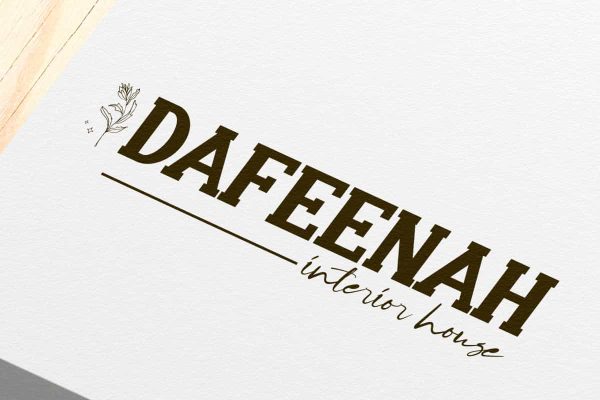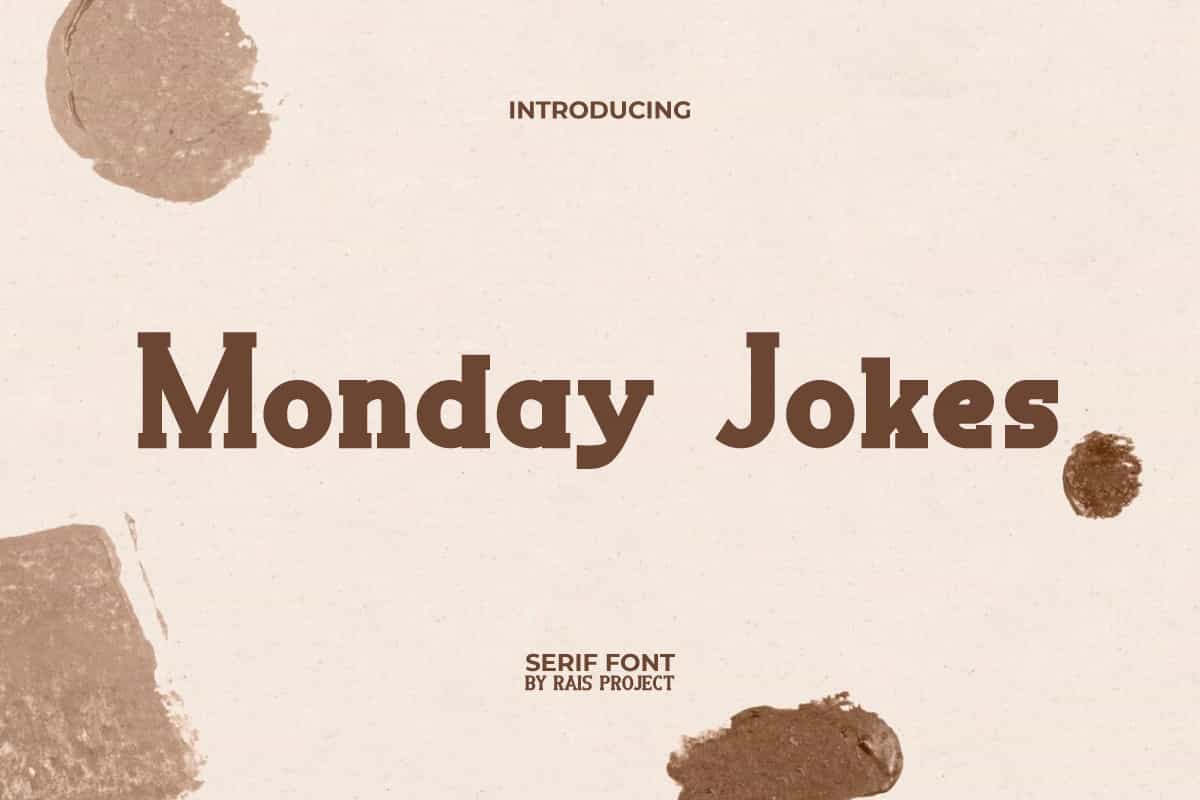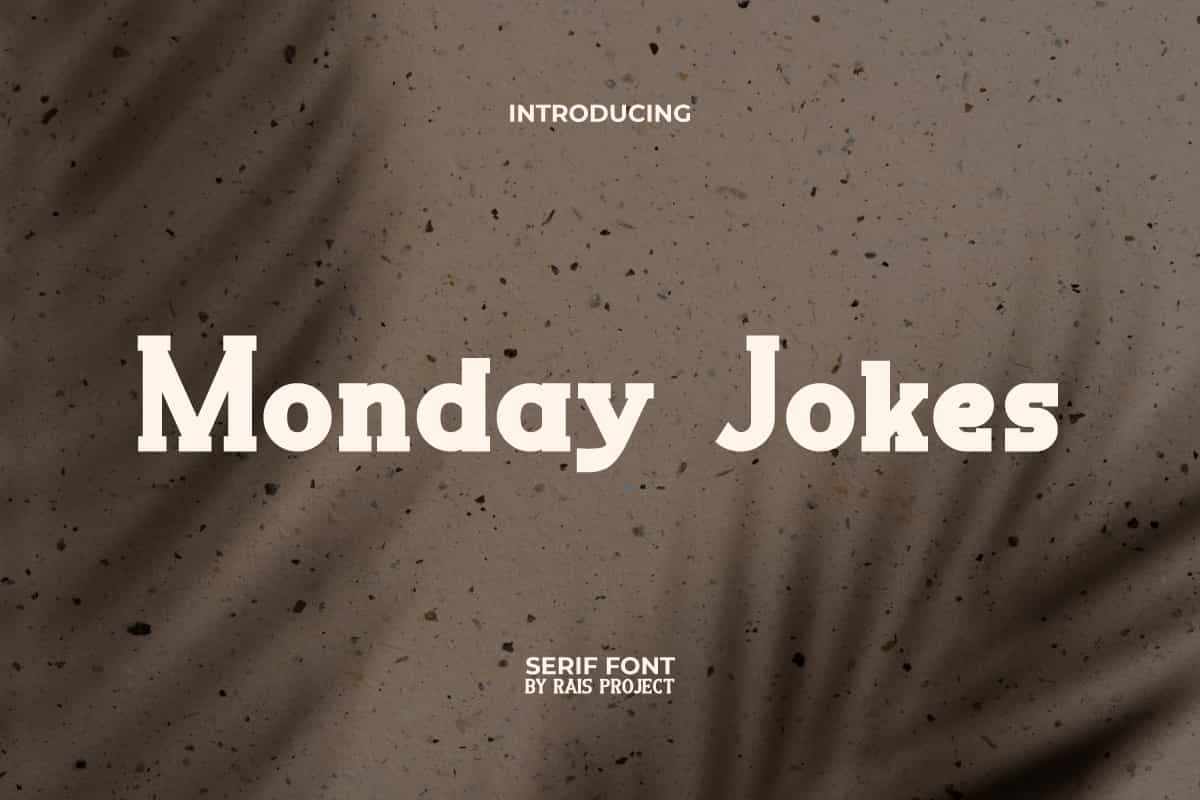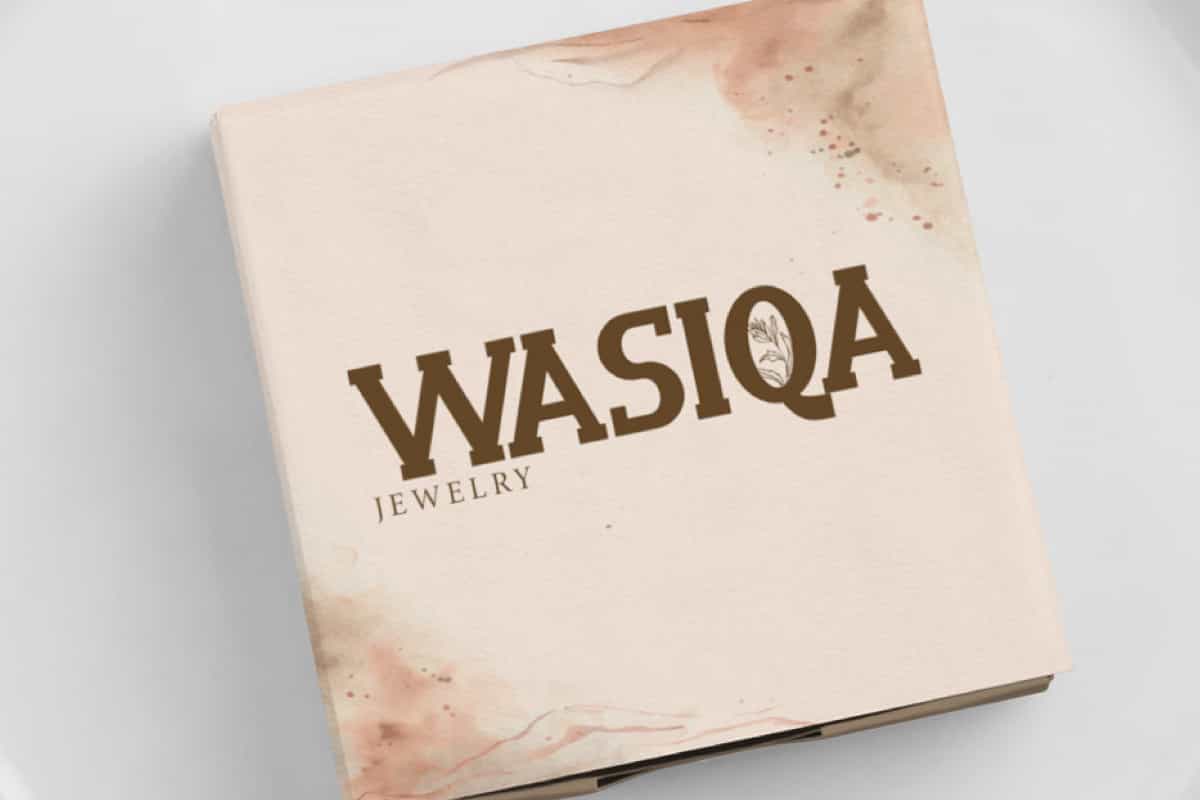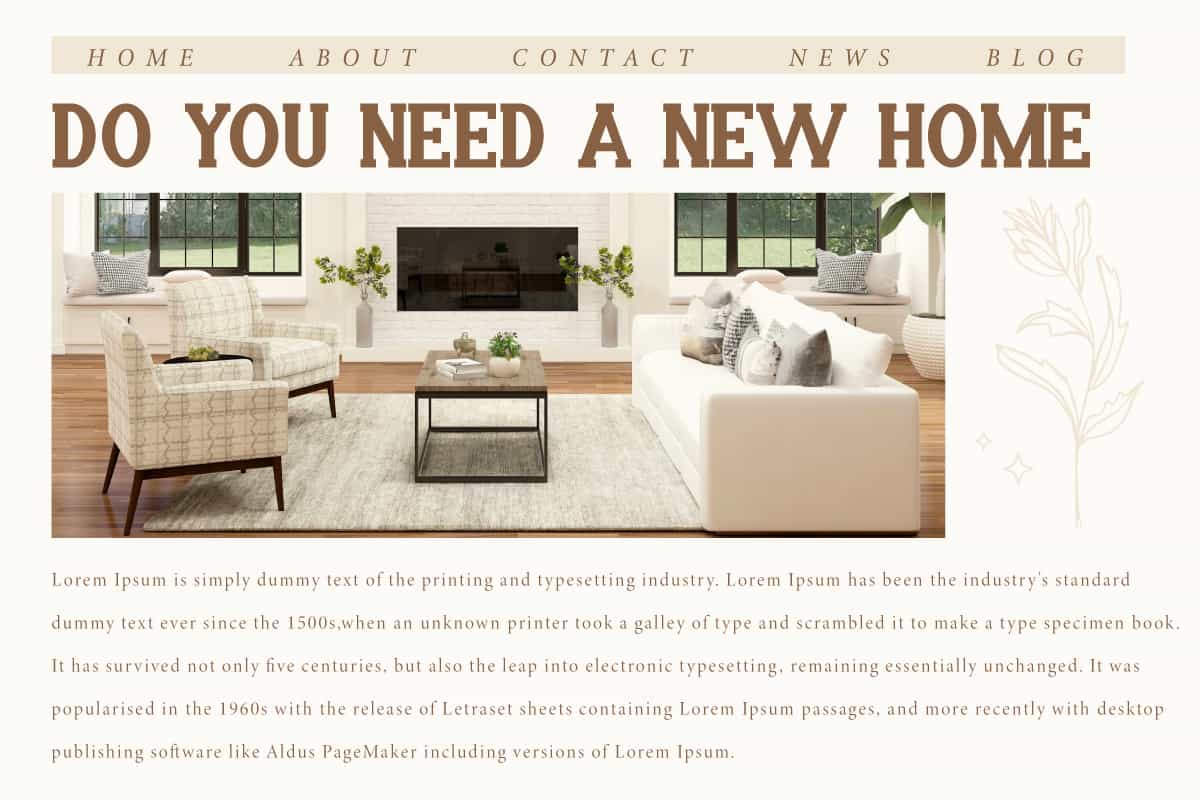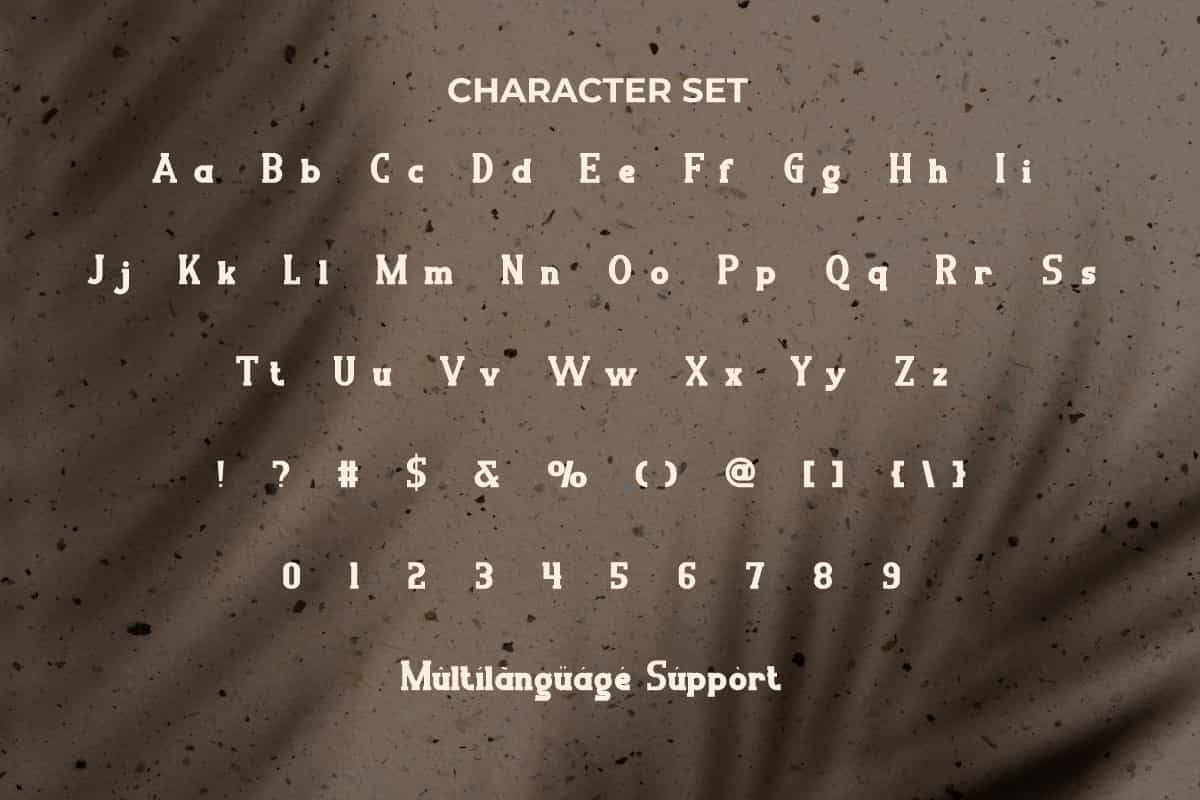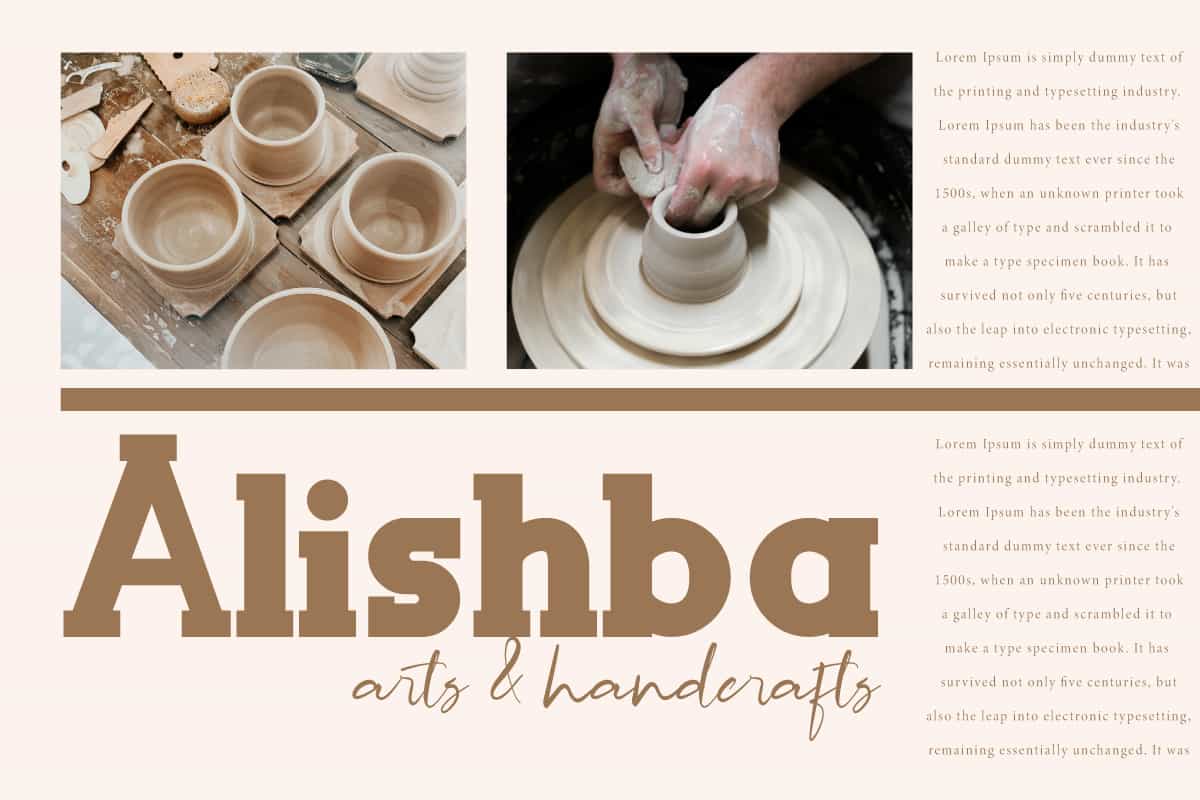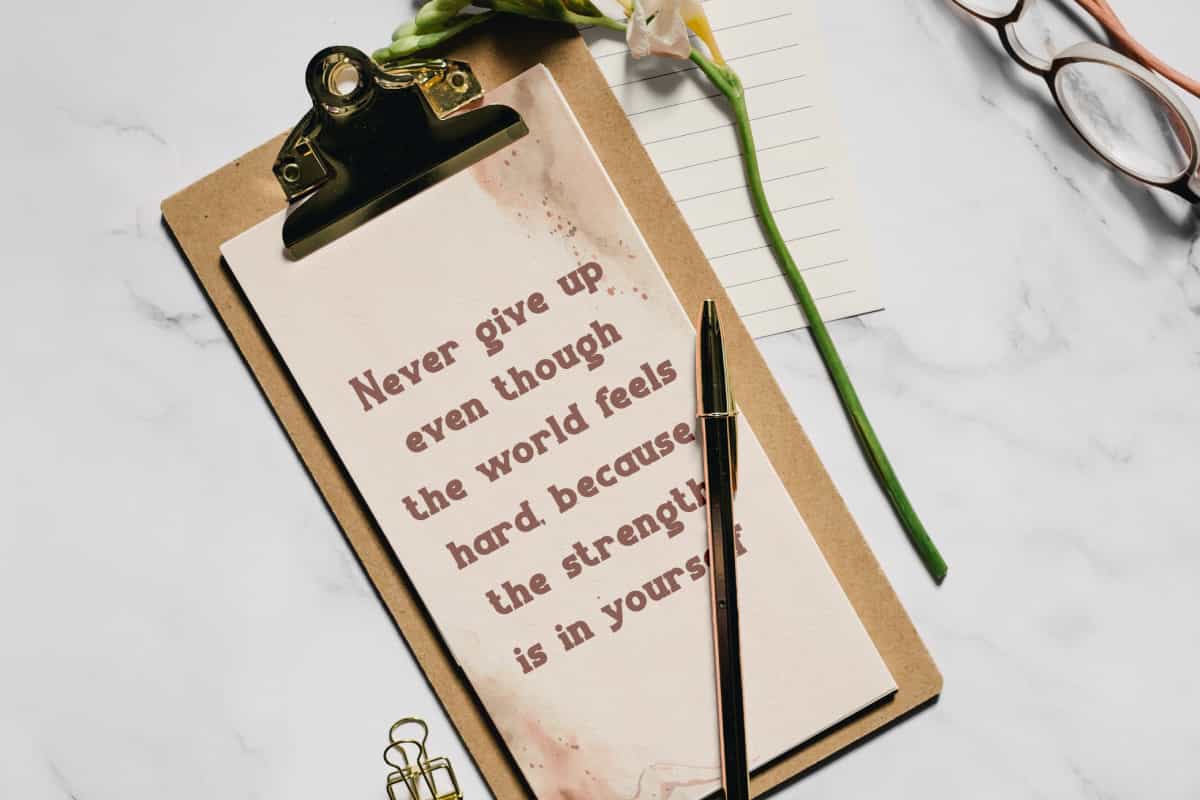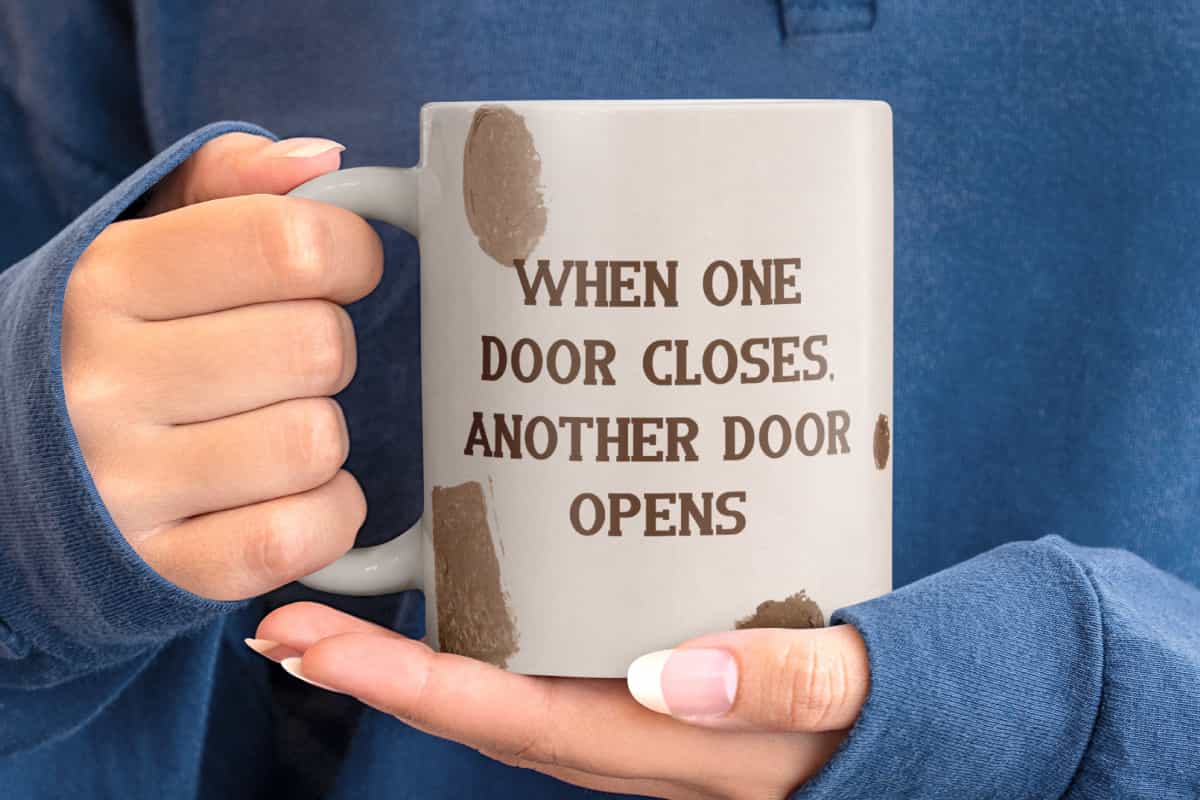
Monday Jokes Font
Monday Jokes Font is a casual yet bold and stylish serif font with classic vintage look.
Monday Jokes Font is a a casual fashionable yet bold and stylish serif font with classic vintage look. This font has a slight vintage feel that can make the design look representative of an old-school style without looking boring. It will be good for any designs, such as poster, signage, cover, menu, invitation, custom design, brand image, label, product packaging, quotes, stationery, web, and more!
Monday Jokes Font includes a full set of Uppercase and Lowercase Letters, Numerals, Punctuation and Symbol. This stylish font will be suitable for various industries, such as fashion, accessories, advertisement, event or festival, cafe, homeware, perfume, photography, printing, publishing, real estate, etc.